The history of typography is a tale of shifting styles. Serifs evoke a sense of heritage and formal elegance. Conversely, sans-serif fonts are valued for their clean, modern practicality and high readability, effectively serving to amplify any text-based message.
Today’s toolkit includes every font style: elegant serifs, high-impact sans-serifs, and expressive scripts. While choosing the right font is always a serious decision, the challenge (and the stakes) are exponentially greater in the world of logo creation.
You have a rich palette of fonts to choose from—from slender, elegant serifs to distinctive, standout script fonts. Utilize this extensive variety to select the ideal font for your project, make your logo truly memorable, or offer
clients a wider range of choices as they develop their brand identity.
Find the perfect font, and you secure a lasting brand element. Your choice will integrate with your clients’ identities, becoming as recognizable as their offerings, from their logo to every digital presence. Make one of these exceptional logo fonts a permanent staple in your branding kit. Now, let’s explore them!Jaquel Minimal Display Logo Typeface
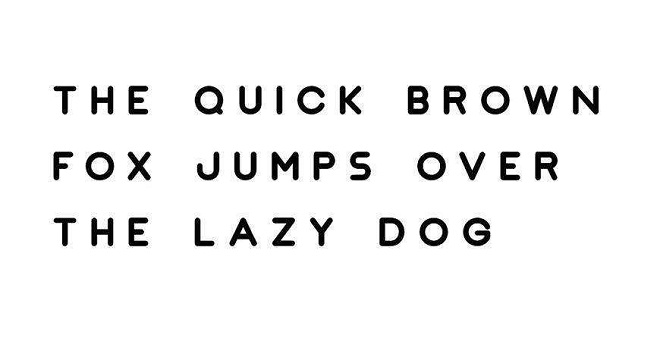
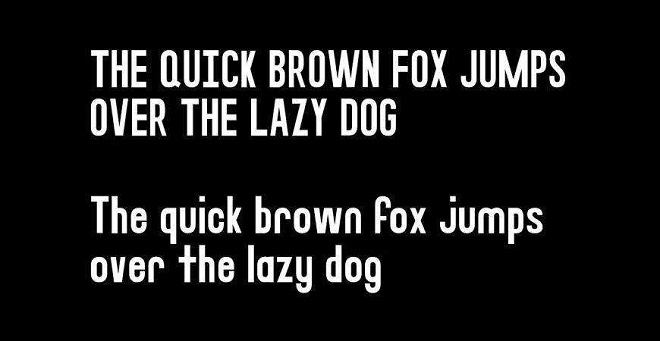
Nord Minimal Display Logo Typeface
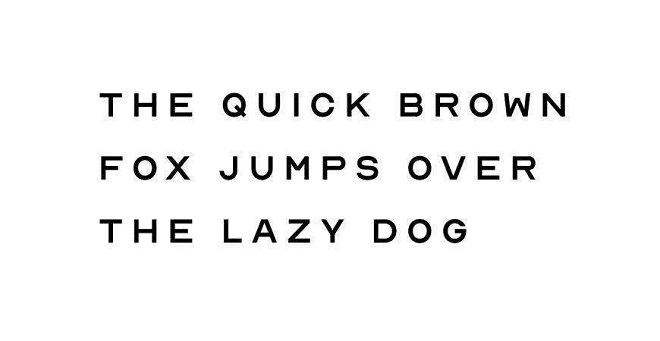
San Marino Typeface for Logo Design
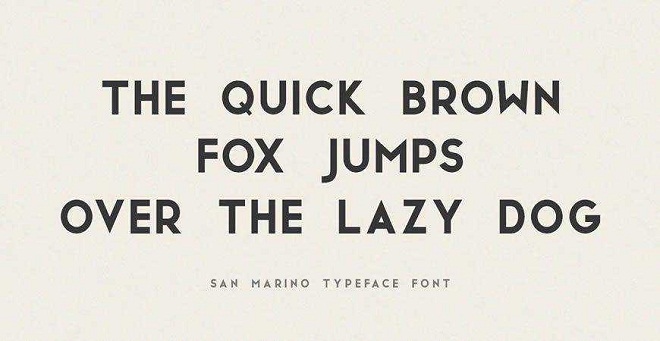
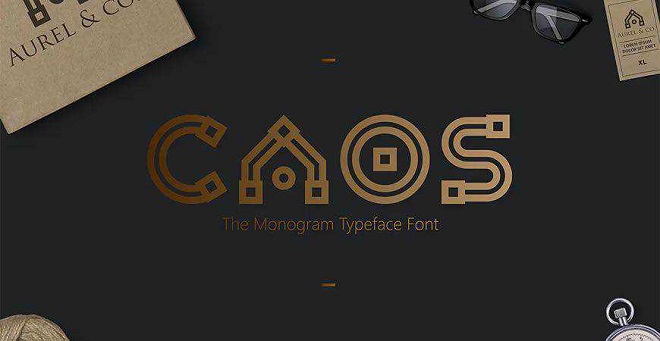
Augor Monogram Typeface for Logos
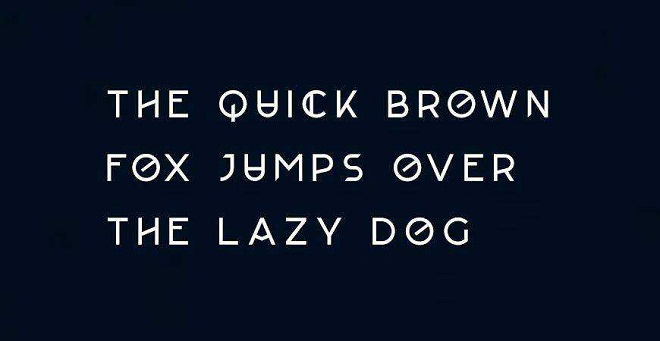
Decorative Origami Alphabet for Logos
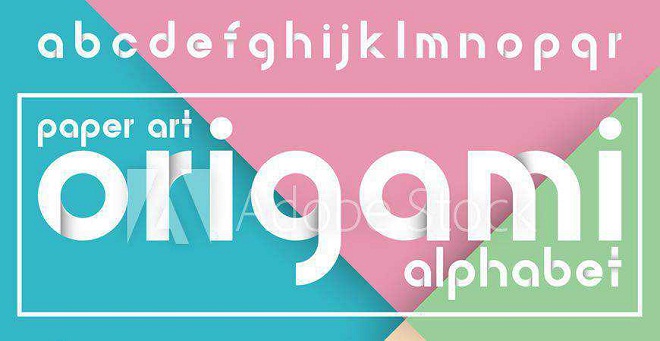
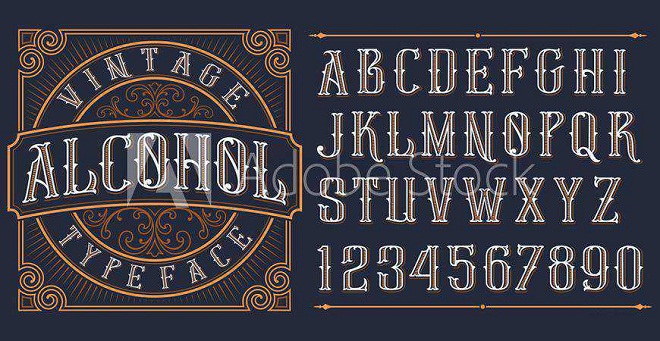
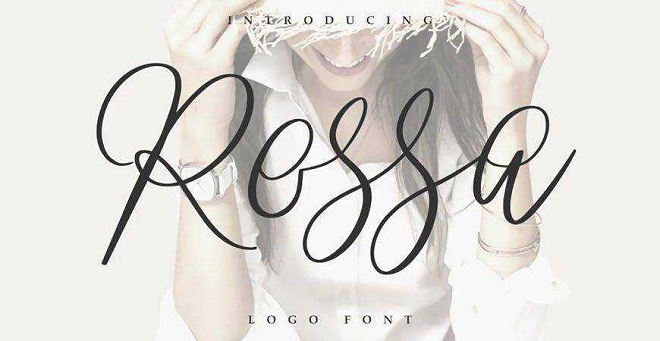
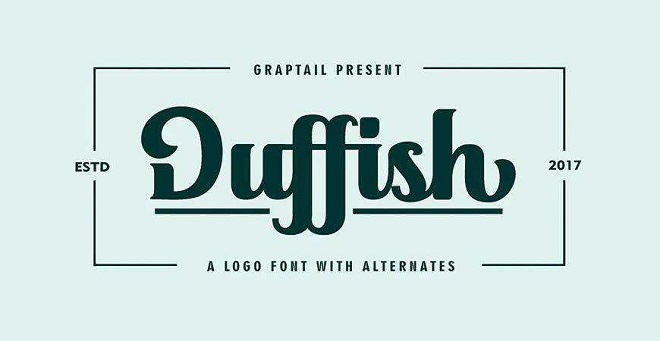
Adrenaline in the Blood Script Font
Stag Modern Display Logo Typeface
Natasya Hand-Lettering Logotype
Quick Silver Logotype Brush Font